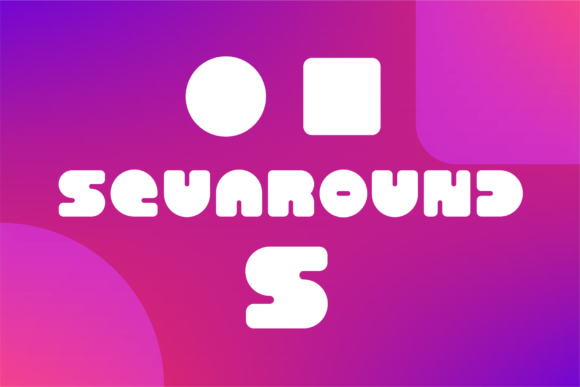
Step into Squaround S Font, where abstract shapes dance in harmonious disarray. A playfully conceptual display typeface font, Squaround S isn't just a font; it's an artistic statement. Its bold, geometric characters exude a charm that's both timeless and modern, capturing the essence of contemporary design aesthetics.
Squaround S Font pushes the boundaries of creativity, welcoming you to embrace a new world of visual expression. Its sharp angles introduce an element of intrigue, while its rounded edges add an unexpected touch of softness. The result? A font that's both striking and approachable, making it a standout choice for designs that demand attention.
But Squaround S Font isn't just about aesthetics; it's about functionality too. Its carefully crafted letterforms ensure optimal readability, even at smaller sizes. Whether you're creating captivating headlines, eye-catching logos, or engaging social media posts, Squaround S Font delivers a consistent performance that will leave your audience captivated.
With Squaround S Font, possibilities are boundless. Dive into a universe of unique designs, where your creativity takes center stage. Its versatility shines in a myriad of applications, from branding and print projects to web and digital designs. Embrace the abstract beauty of Squaround S Font and watch your designs transform into works of art.